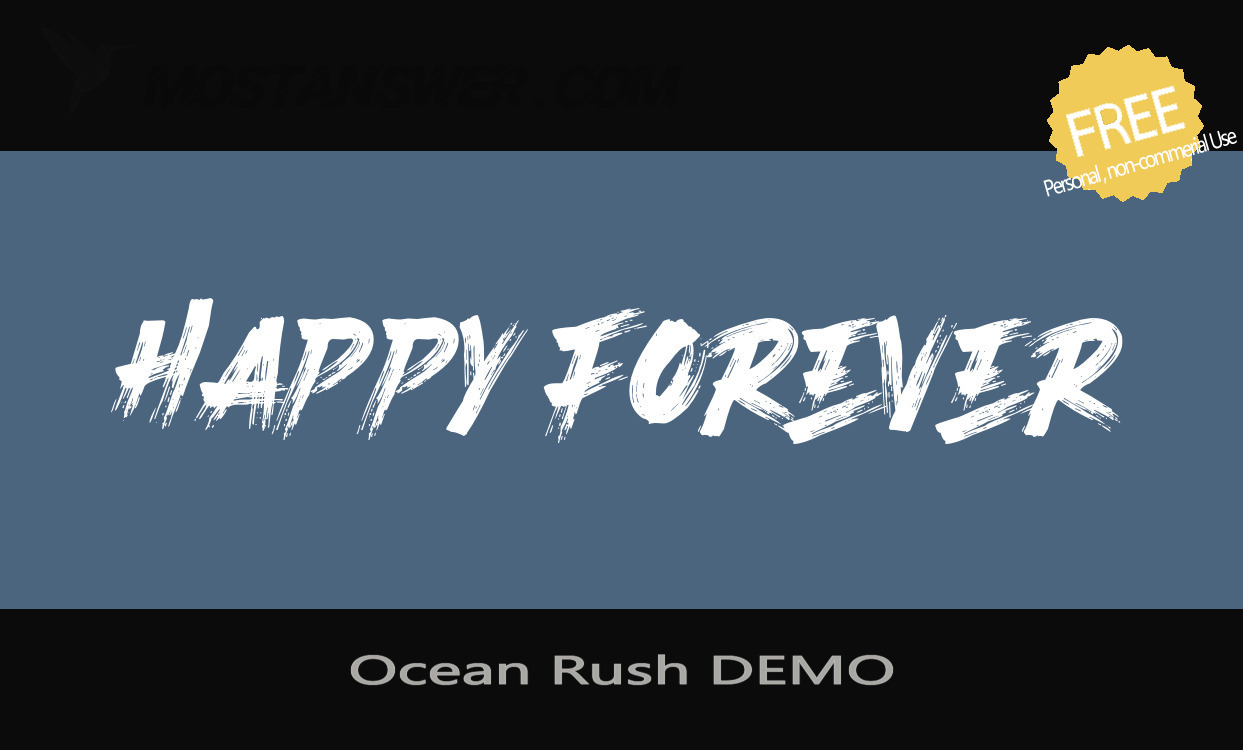
Ocean Rush Demo Font
Ocean Rush Demo Font - Ocean rush provides the aesthetic of paint brush typography with the fading brush strokes effect. Online fonts — a site about fonts that has tens of categories and thousands of typefaces A strong and independent font! Download ocean brush demo font family · free for personal use · the ocean brush is a handwritten brush font inspired by the dynamic. Ocean rush provides the aesthetic of paint brush typography with the fading brush strokes effect. A strong and independent font!
Ocean rush provides the aesthetic of paint brush typography with the fading brush strokes effect. Download ocean brush demo font family · free for personal use · the ocean brush is a handwritten brush font inspired by the dynamic. A strong and independent font! Online fonts — a site about fonts that has tens of categories and thousands of typefaces A strong and independent font! Ocean rush provides the aesthetic of paint brush typography with the fading brush strokes effect.
Online fonts — a site about fonts that has tens of categories and thousands of typefaces Ocean rush provides the aesthetic of paint brush typography with the fading brush strokes effect. Download ocean brush demo font family · free for personal use · the ocean brush is a handwritten brush font inspired by the dynamic. Ocean rush provides the aesthetic of paint brush typography with the fading brush strokes effect. A strong and independent font! A strong and independent font!
Ocean rush provides the aesthetic of paint brush typography with the fading brush strokes effect. A strong and independent font! Download ocean brush demo font family · free for personal use · the ocean brush is a handwritten brush font inspired by the dynamic. A strong and independent font! Online fonts — a site about fonts that has tens of.
Ocean rush provides the aesthetic of paint brush typography with the fading brush strokes effect. Download ocean brush demo font family · free for personal use · the ocean brush is a handwritten brush font inspired by the dynamic. A strong and independent font! Ocean rush provides the aesthetic of paint brush typography with the fading brush strokes effect. Online.
Ocean Rush DEMO font
A strong and independent font! Ocean rush provides the aesthetic of paint brush typography with the fading brush strokes effect. Online fonts — a site about fonts that has tens of categories and thousands of typefaces Ocean rush provides the aesthetic of paint brush typography with the fading brush strokes effect. Download ocean brush demo font family · free for.
Online fonts — a site about fonts that has tens of categories and thousands of typefaces A strong and independent font! Ocean rush provides the aesthetic of paint brush typography with the fading brush strokes effect. Ocean rush provides the aesthetic of paint brush typography with the fading brush strokes effect.
Ocean rush provides the aesthetic of paint brush typography with the fading brush strokes effect. Download ocean brush demo font family · free for personal use · the ocean brush is a handwritten brush font inspired by the dynamic. A strong and independent font! Online fonts — a site about fonts that has tens of categories and thousands of typefaces.
Ocean Rush font by The Branded Quotes FontRiver
A strong and independent font! Online fonts — a site about fonts that has tens of categories and thousands of typefaces Ocean rush provides the aesthetic of paint brush typography with the fading brush strokes effect. Download ocean brush demo font family · free for personal use · the ocean brush is a handwritten brush.
Ocean Rush Font
A strong and independent font! Online fonts — a site about fonts that has tens of categories and thousands of typefaces A strong and independent font! Download ocean brush demo font family · free for personal use · the ocean brush is a handwritten brush font inspired by the dynamic. Ocean rush provides the aesthetic of paint brush typography with.
Ocean Rush DEMO Font by The Branded Quotes
A strong and independent font! Ocean rush provides the aesthetic of paint brush typography with the fading brush strokes effect. Ocean rush provides the aesthetic of paint brush typography with the fading brush strokes effect. Download ocean brush demo font family · free for personal use · the ocean brush is a handwritten brush font inspired by the dynamic. Online.
Ocean rush provides the aesthetic of paint brush typography with the fading brush strokes effect. A strong and independent font! Ocean rush provides the aesthetic of paint brush typography with the fading brush strokes effect. A strong and independent font! Online fonts — a site about fonts that has tens of categories and thousands of typefaces
Ocean Rush Provides The Aesthetic Of Paint Brush Typography With The Fading Brush Strokes Effect.
Ocean rush provides the aesthetic of paint brush typography with the fading brush strokes effect. Download ocean brush demo font family · free for personal use · the ocean brush is a handwritten brush font inspired by the dynamic. A strong and independent font! A strong and independent font!